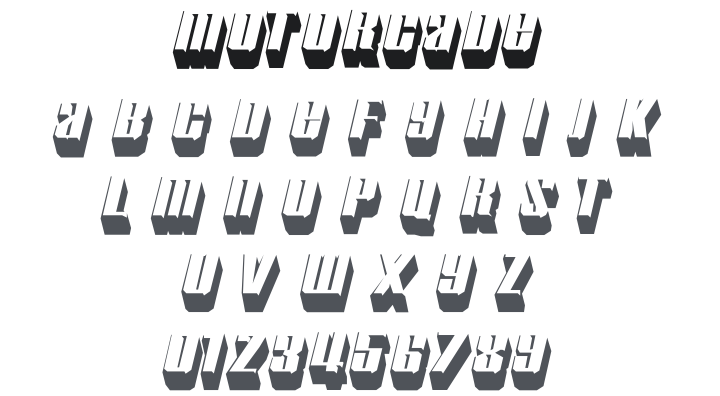
Motorcade Font
About Motorcade
Motorcade is a ghostly outline display typeface — the creator describes it as "the ghost image of a chrome 3D font," where only the transparent inner reflection of a shiny metallic letter remains, stripped of its solid body. The result is ethereal, unusual, and hauntingly cool. Perfect for luxury automotive branding, sci-fi titles, high-end event posters, metallic-themed designs, and any headline needing spectral, chrome-kissed elegance.